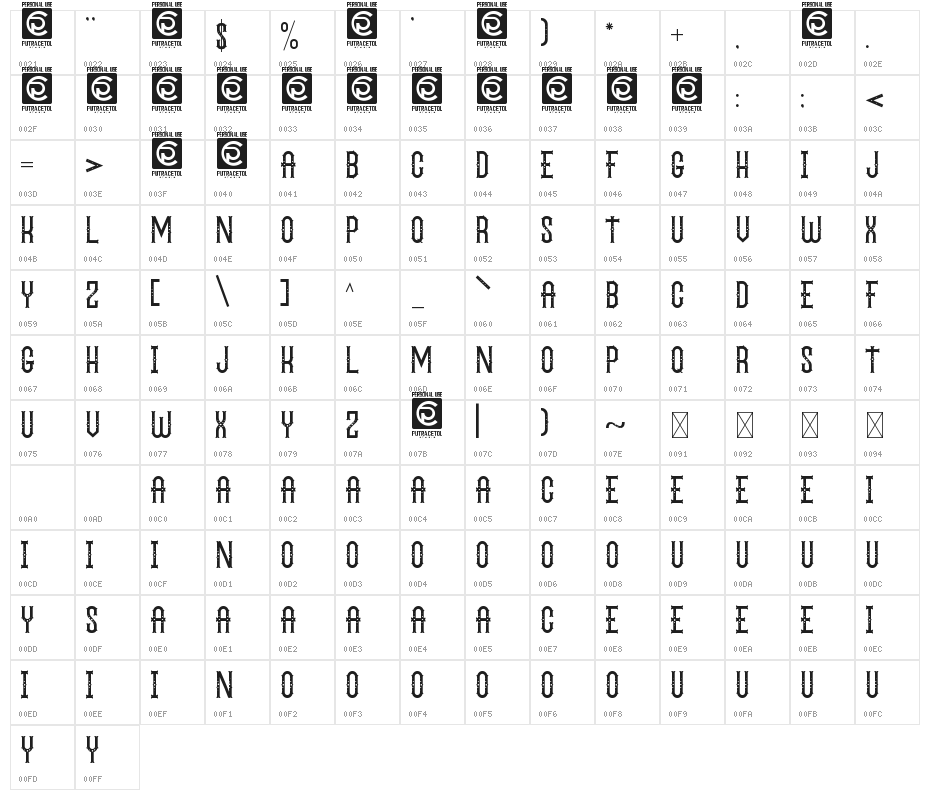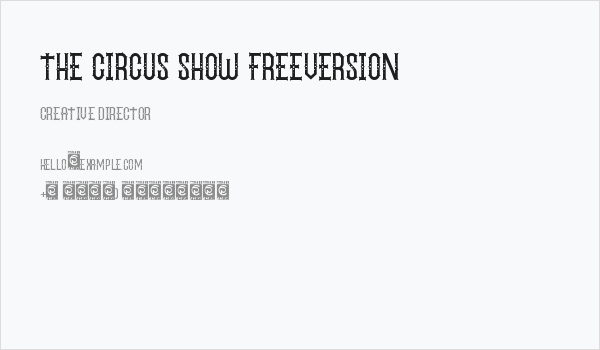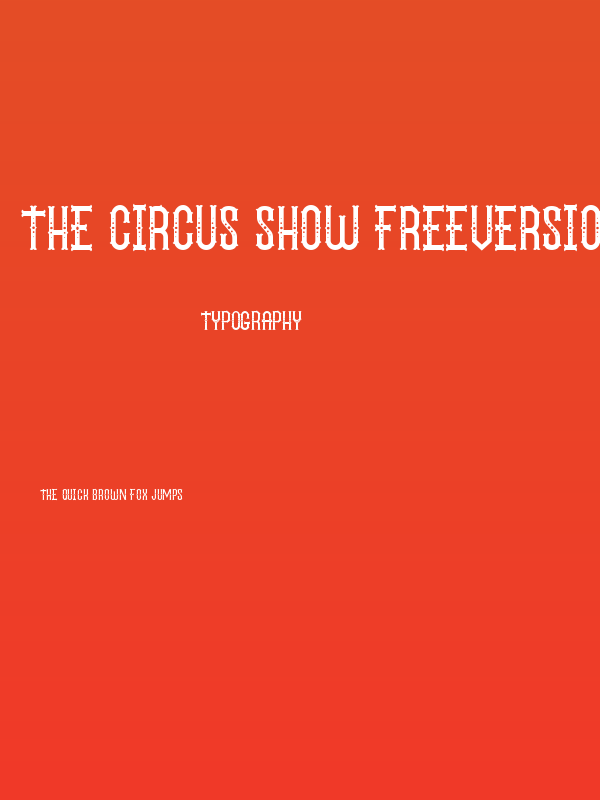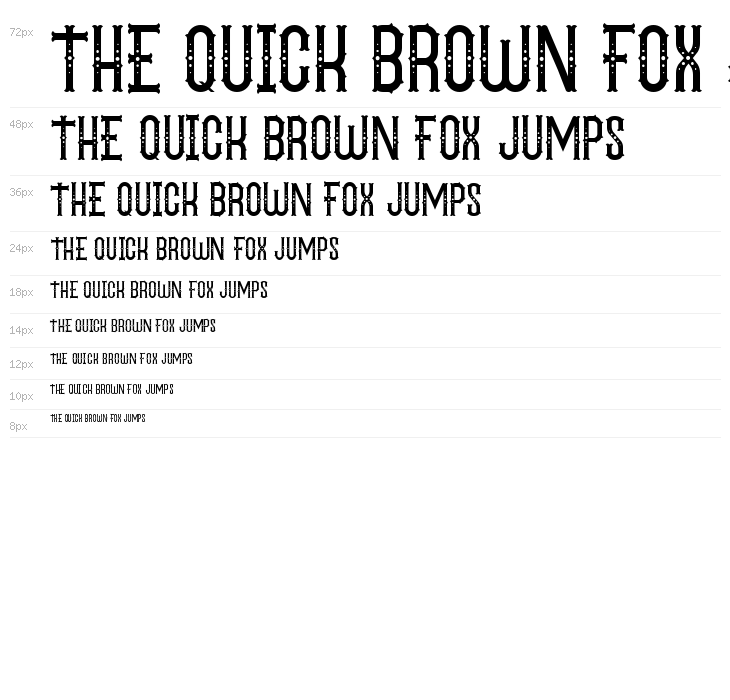
The Circus Show FreeVersion Font
The Circus Show FreeVersion Description
This font features a bold and decorative style, reminiscent of vintage circus posters. Each character is adorned with small circular embellishments, giving it a playful and eye-catching appearance. The uppercase letters are tall and narrow, with a consistent stroke width that adds to the boldness of the design. The lowercase letters maintain the same decorative elements, ensuring a cohesive look throughout the typeface. The numbers and special characters are designed to match the overall theme, making this font ideal for projects that require a touch of whimsy and nostalgia.
| Proposed Projects | Ideal for circus-themed posters, event invitations, playful branding, and vintage-style advertisements. |